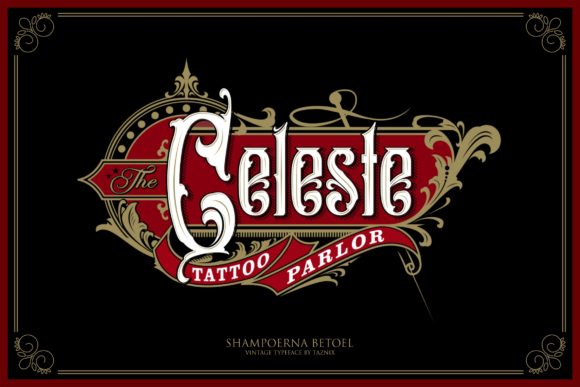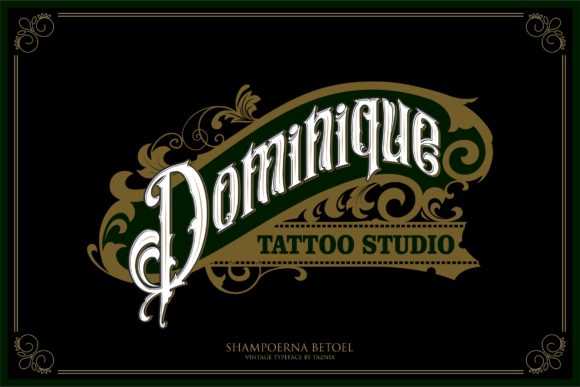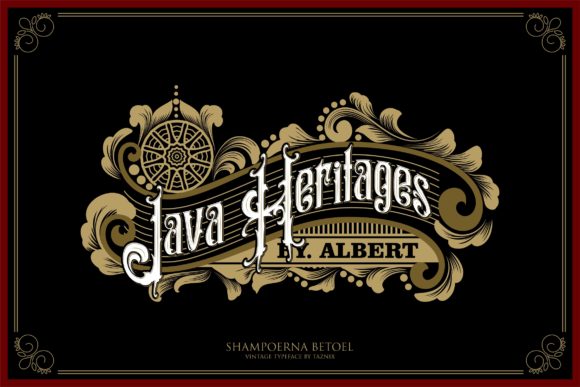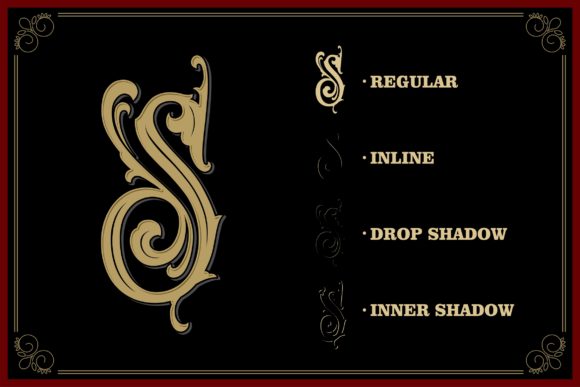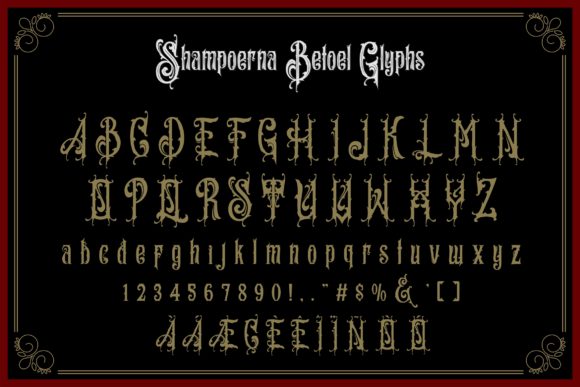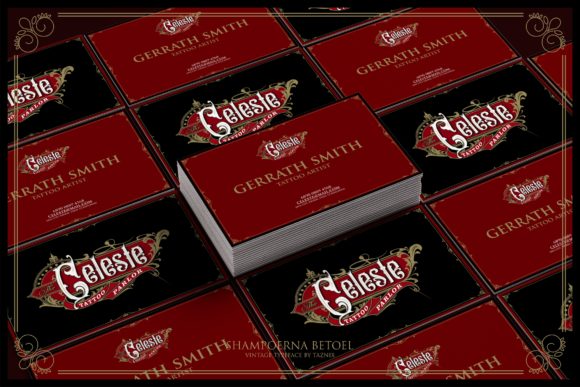
Introduction to Shampoerna Betoel Font
Have you ever been working on a creative project, pouring your heart and soul into it, and then suddenly, the perfect font strikes you? It’s that moment when everything comes together, and you know you’ve found the missing piece. For designers, discovering the right font can be a game-changer. It’s the difference between a good design and an exceptional one.
That’s where Shampoerna Betoel Font comes in. This elegant and classic blackletter font is a design treasure trove waiting to be explored. With its incredibly versatile style, you can create spectacular designs that leave a lasting impression. Whether you’re working on a branding project, a marketing campaign, or a personal art piece, Shampoerna Betoel Font is an excellent choice.
Key Features of Shampoerna Betoel Font
- Unique, hand-drawn design with a creative and playful feel, perfect for any creative project.
- High-quality font with a transparent background, ideal for use on any design resource, including logos, graphics, and more.
- Includes 50 unique characters, including uppercase and lowercase letters, numbers, and special characters.
- Perfect for designers and artists looking for a unique and creative font to add a personal touch to their work.
Honest Review: Shampoerna Betoel Font
As a designer, I’m always on the lookout for high-quality fonts that can elevate my creative projects. I recently stumbled upon the Shampoerna Betoel Font, and I’m excited to share my honest review with you.
- ✨ The font features a unique, modern design that’s perfect for creating eye-catching headlines and titles.
Overall, I’m impressed with the Shampoerna Betoel Font. Its high-quality design and versatility make it a great addition to any designer’s toolkit. While it may have a few limitations, I believe it’s a worthwhile download for designers looking for a unique and modern font.
Tips for Getting the Most Out of Shampoerna Betoel Font
To get the most out of this font, use it on a transparent background to make your design stand out. This font also pairs well with other high-quality fonts, so feel free to experiment with different font combinations. Additionally, use the font in conjunction with other design elements, such as images and graphics, to create a visually appealing design.
Shampoerna Betoel Font is ideal for use in creative projects, such as logos, brochures, business cards, and social media graphics. Its high-quality design and transparent background make it perfect for use in digital designs, such as websites and mobile apps.